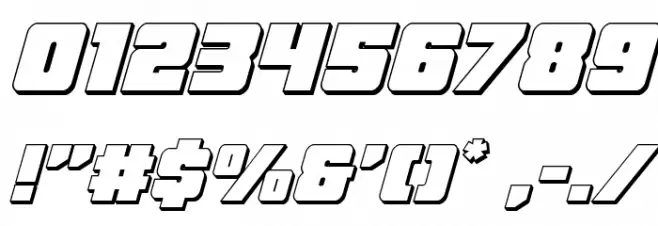
Force Runner 3D Italic Font
Force Runner 3D Italic Description
This font features a bold, three-dimensional design with an italic slant, giving it a dynamic and futuristic appearance. The characters are blocky and robust, with a strong presence that makes them stand out. The 3D effect is achieved through a shadow-like outline that adds depth to each letter and number. The font is highly stylized, making it suitable for projects that require a modern and impactful look. The uppercase and lowercase letters maintain a consistent style, and the numerals are equally bold and prominent. Special characters are included, matching the overall aesthetic of the font.
A bold, 3D italic font with a futuristic and dynamic style from Uncategorized fonts.
- Proposed Projects: Ideal for video game titles, movie posters, sports branding, and any project needing a bold, modern look.